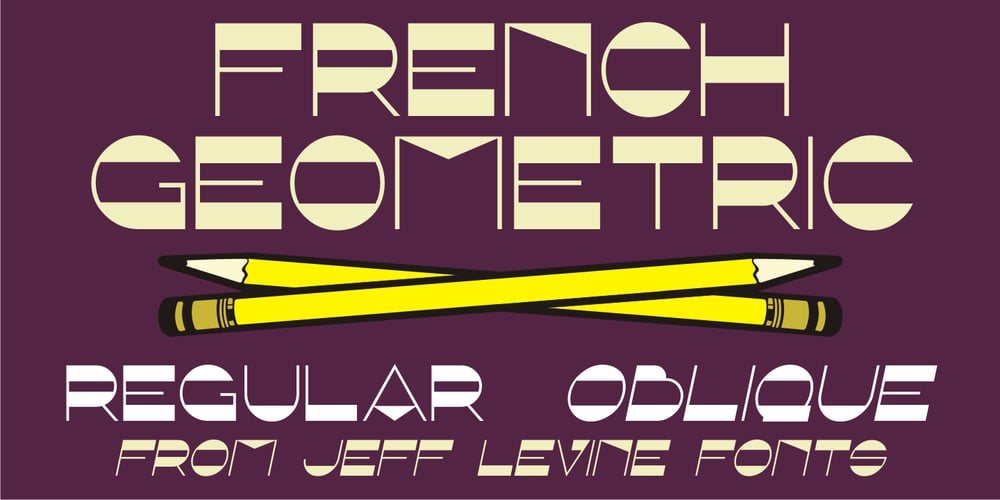
French Geometric JNL
French Geometric JNL font
French Geometric JNL Font Family was designed by Jeff Levine and published by Jeff Levine. French Geometric JNL contains 2 styles and family package options. An Art Deco geometric alphabet found within the pages of the 1939 French lettering book “Modèles de lettres modernes par Georges Léculier” (“Models of Modern Letters by Georges Léculier”) is the basis for French Geometric JNL; available in both regular and oblique versions.